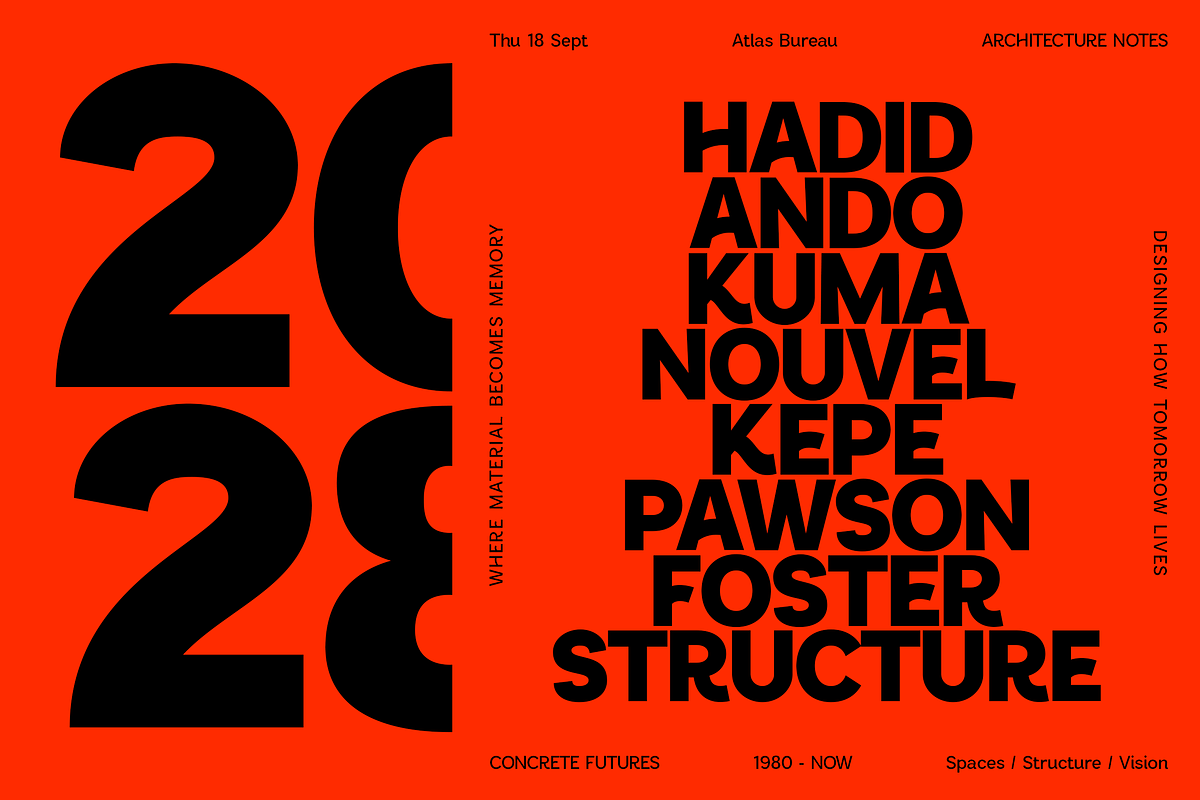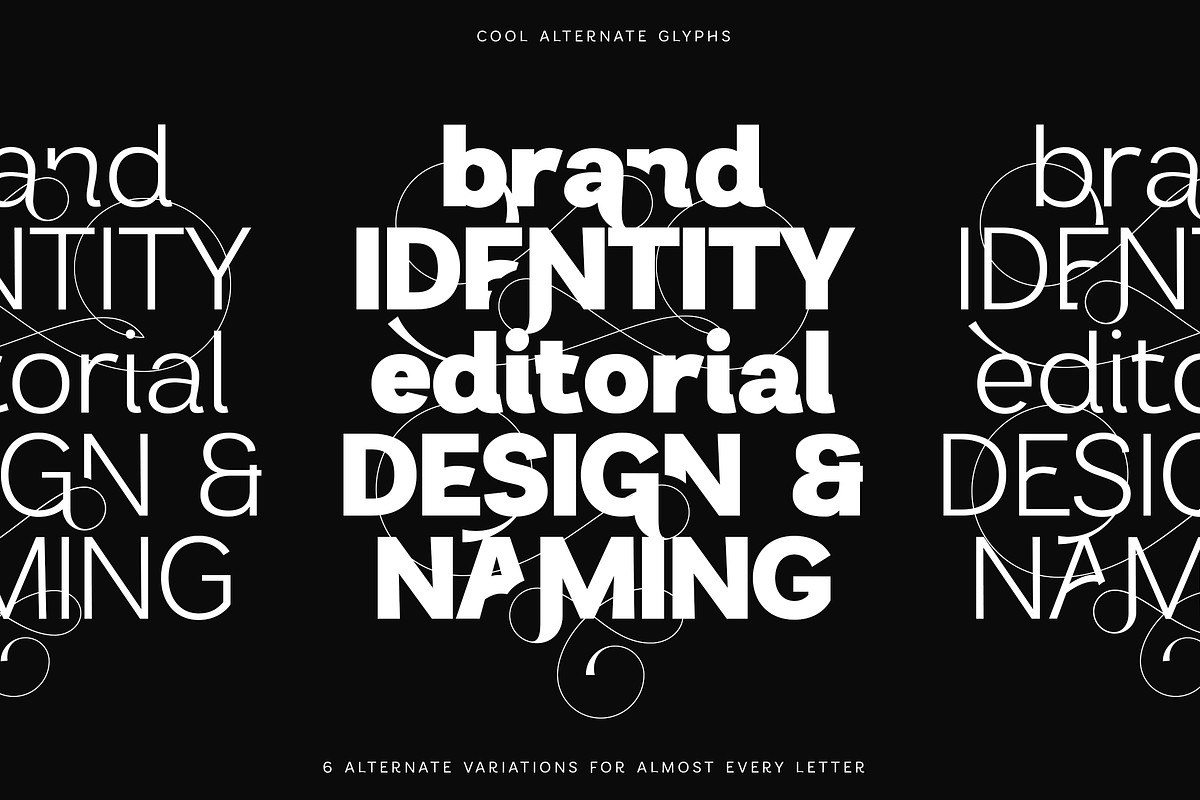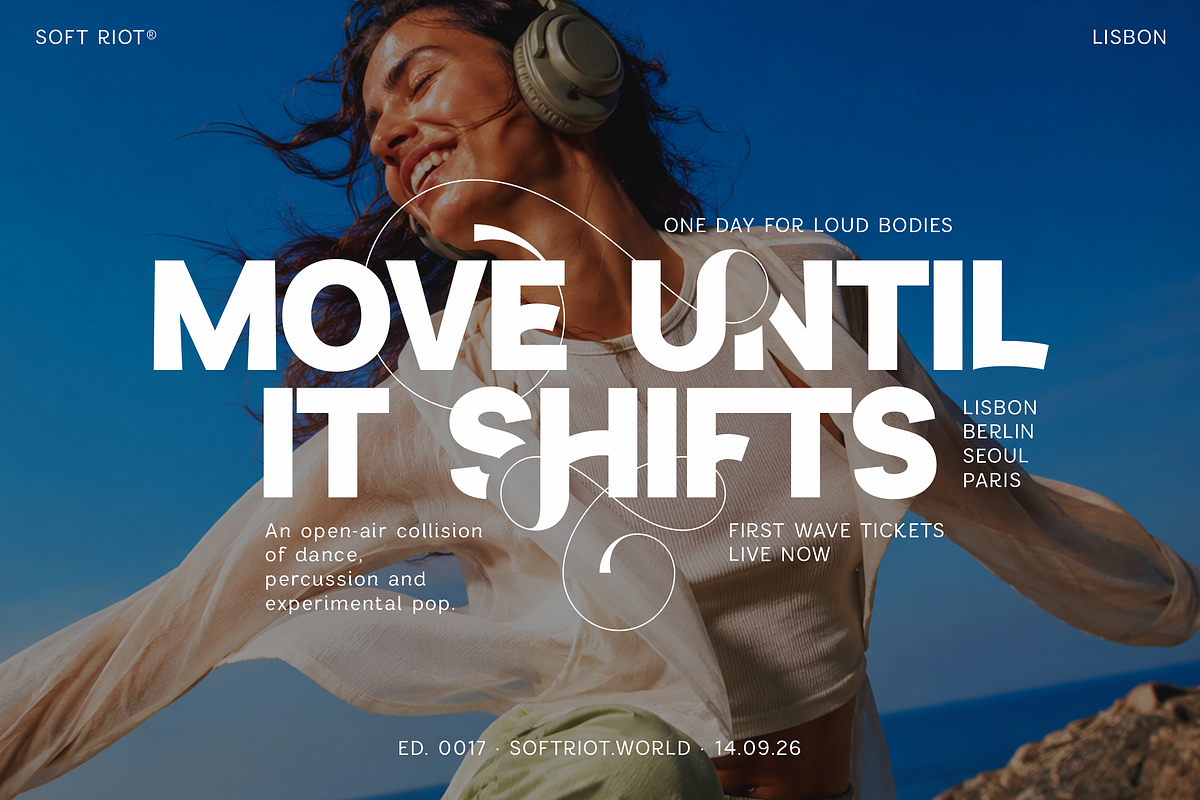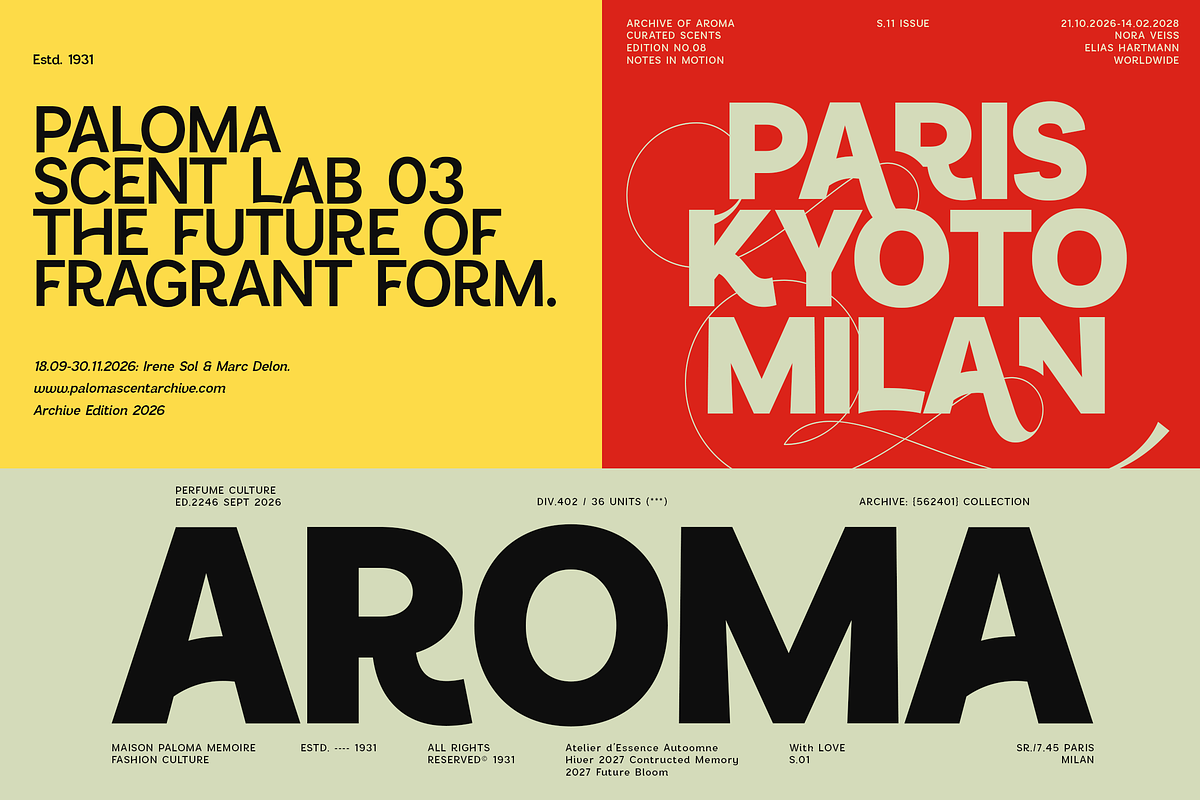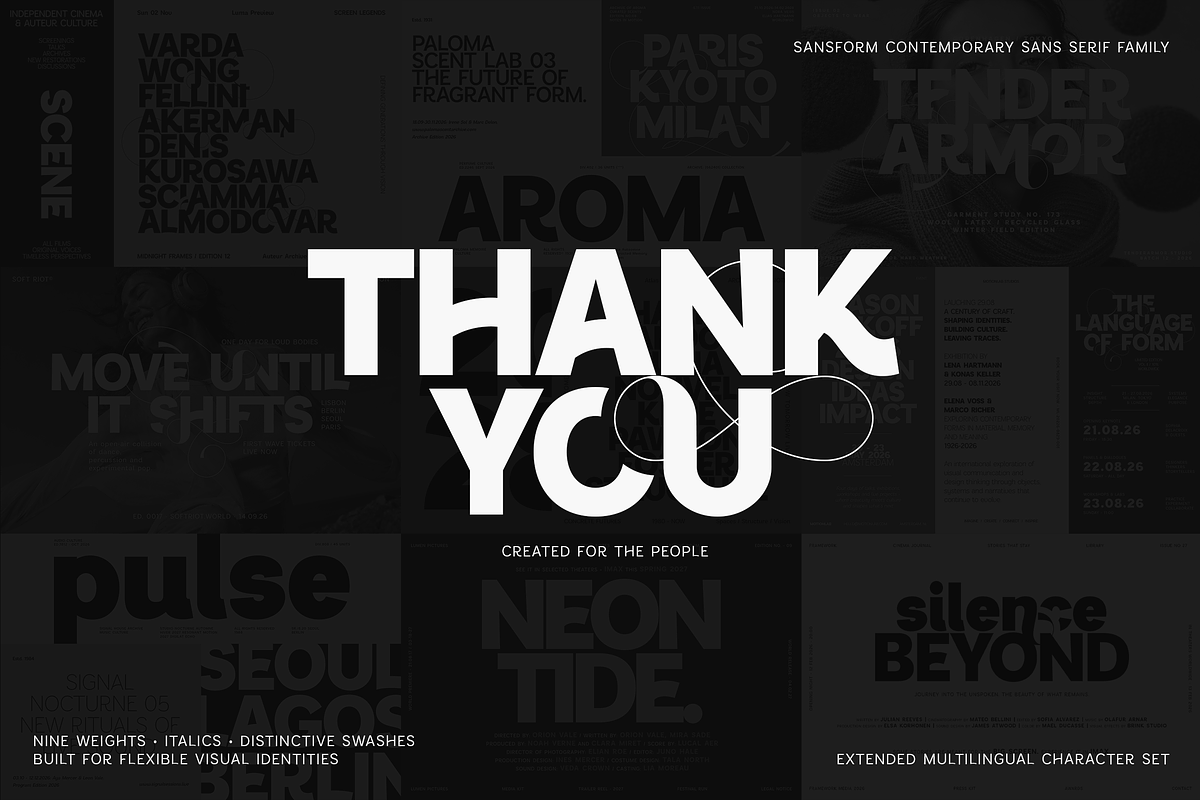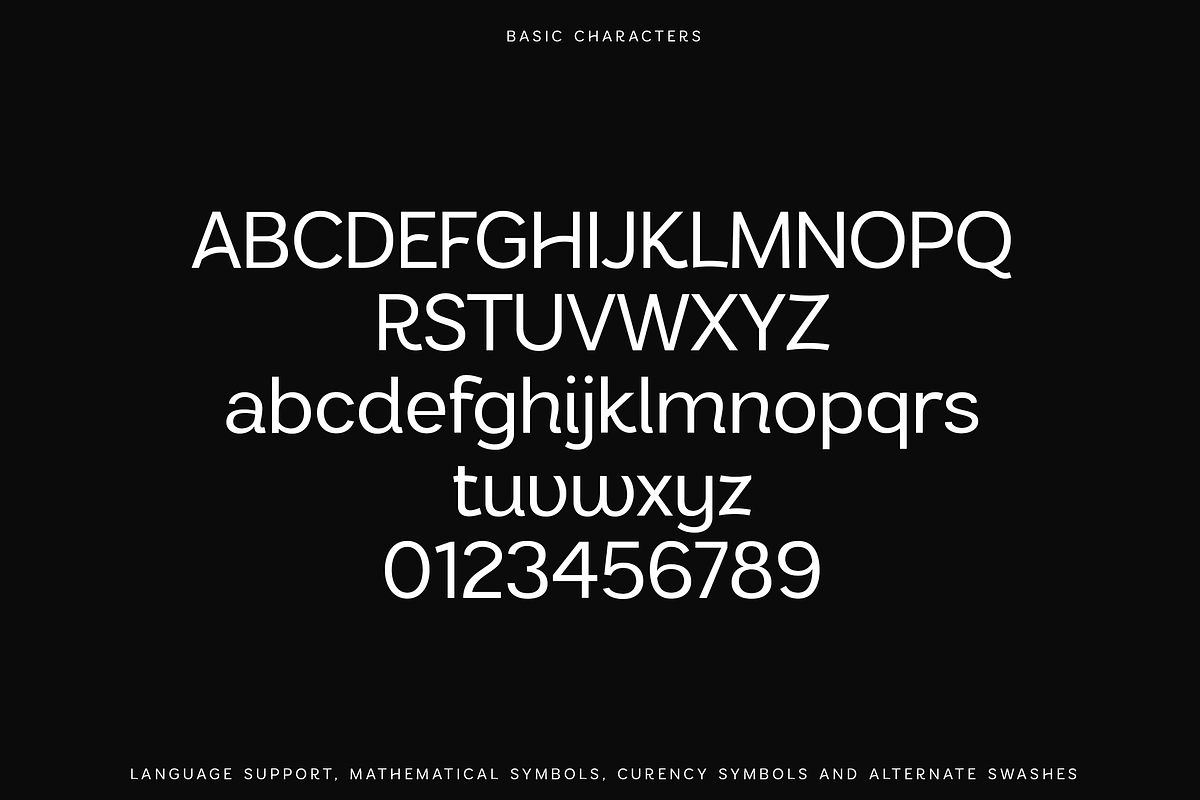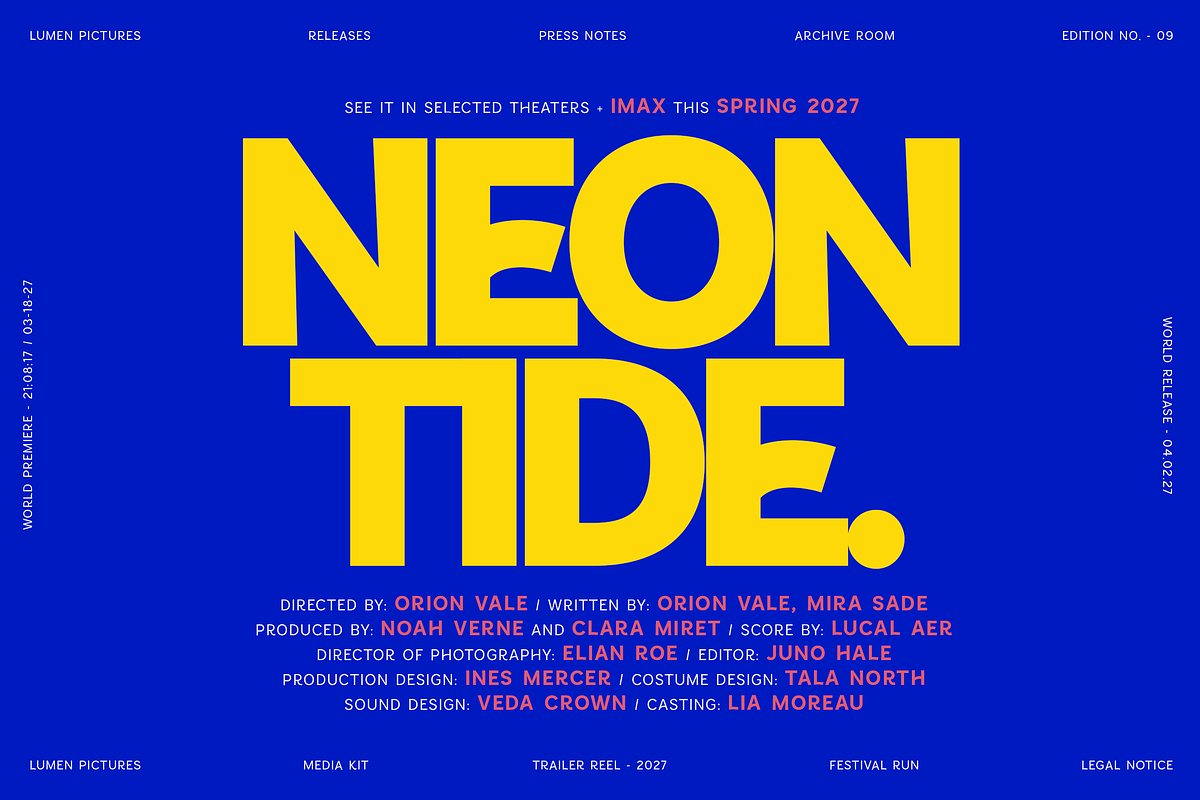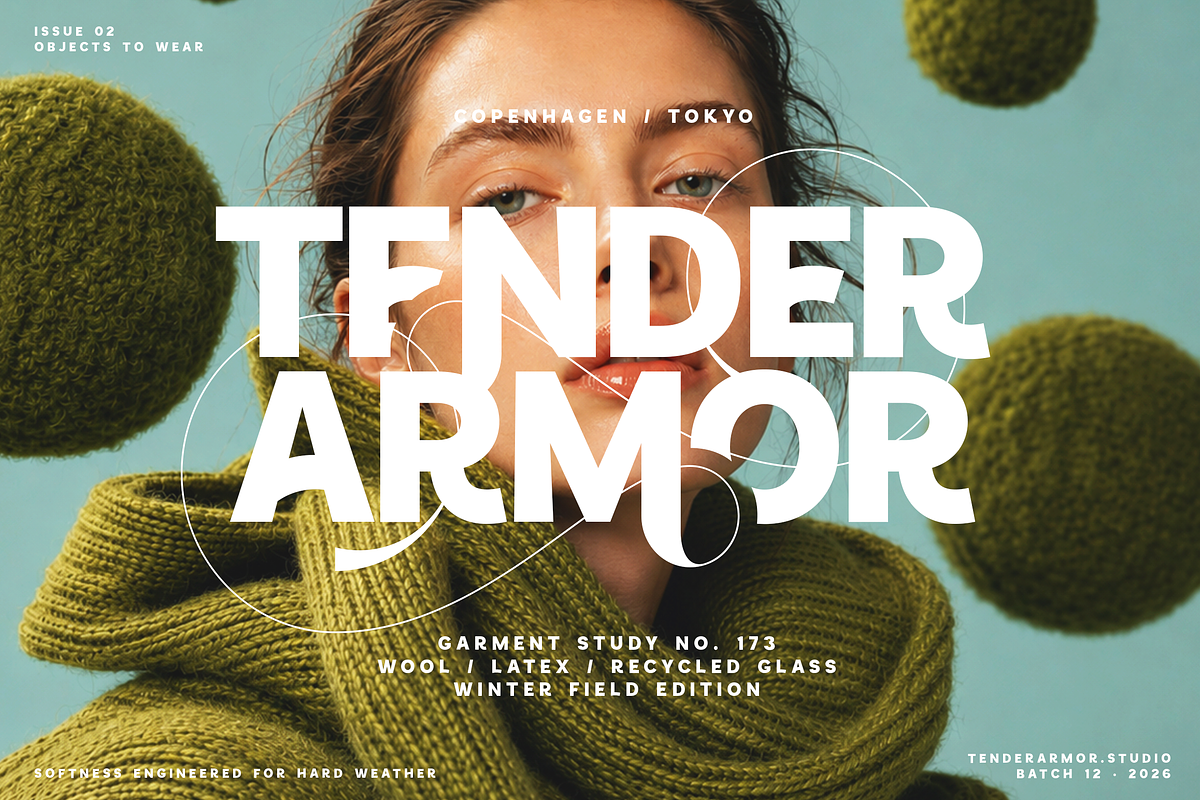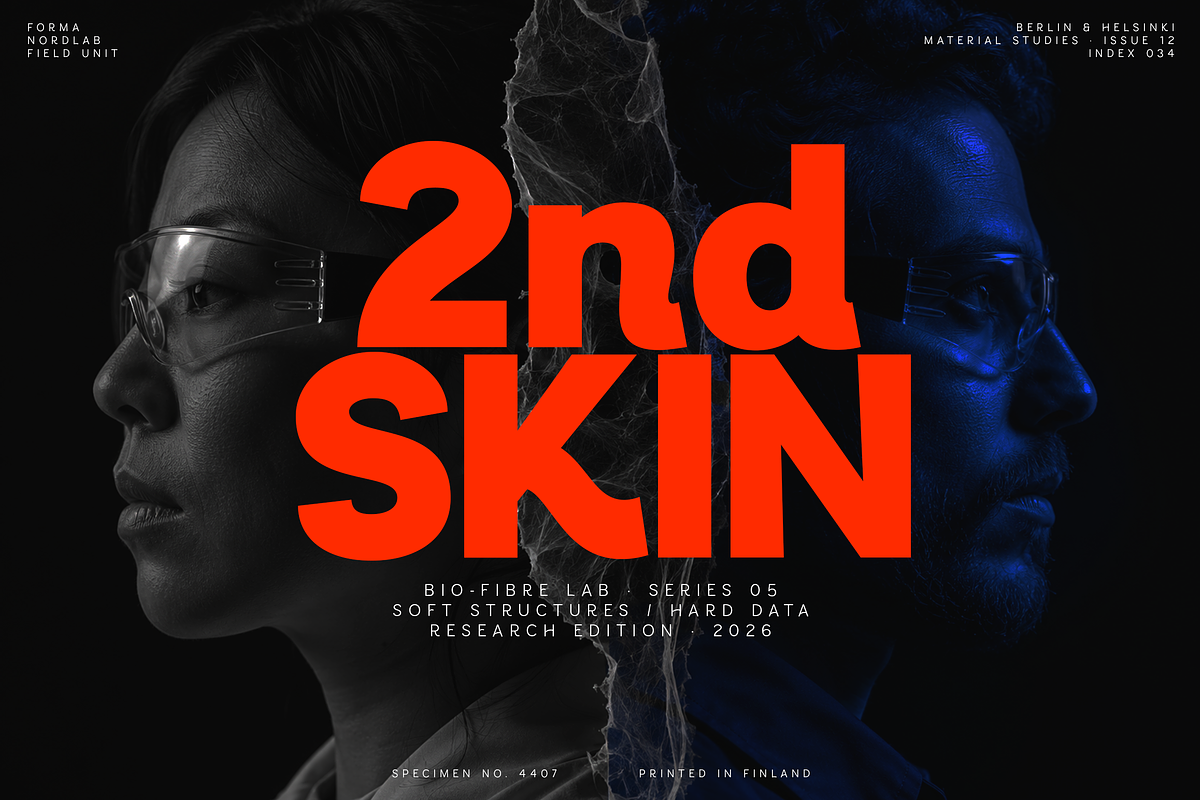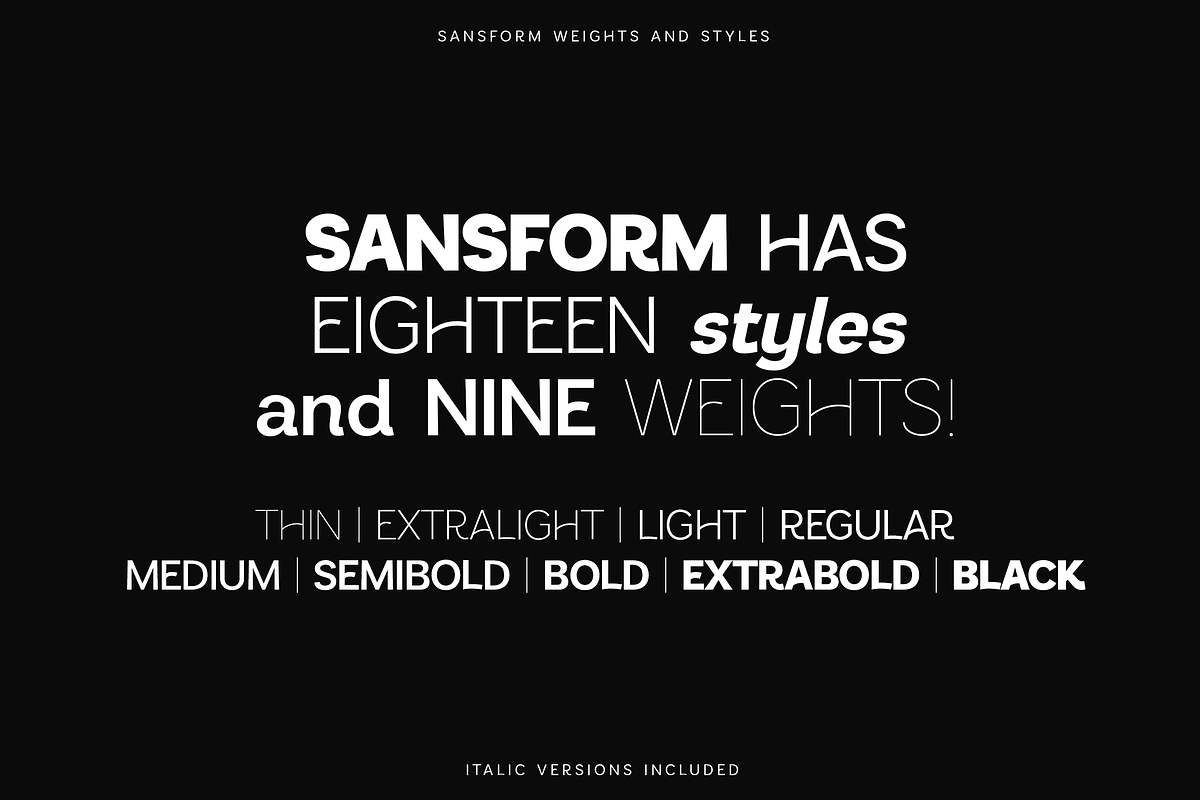
Sansform - Sans Serif Font Family
Sansform is a contemporary sans serif family built for designers who want clarity without sacrificing personality. Its clean geometric structure is enriched with expressive letterforms, elegant swashes and an extensive collection of alternate glyphs - making it equally powerful for minimal branding and bold editorial typography.
The family includes nine carefully balanced weights, from delicate Thin to commanding Black, each paired with a matching italic. This gives you 18 versatile styles that work seamlessly across headlines, body copy, logos and complete visual identity systems.
What truly sets Sansform apart is its flexibility. With six alternate variations for almost every letter, you can reshape words, create distinctive compositions and give each project a more custom, art-directed appearance. Use the clean standard characters for refined layouts, or introduce the expressive alternates and sweeping swashes when your design needs more movement and character.
Sansform is an excellent choice for:
Brand identities, logos, editorial layouts, magazines, fashion campaigns, packaging, posters, websites, social media graphics, advertising, presentations and contemporary cultural projects.
Included Features
9 weights from Thin to Black
Extensive alternate character collection
Distinctive decorative swashes
Numerals, punctuation and currency symbols
Extended multilingual language support
Designed for both display typography and supporting text
From understated luxury branding to energetic oversized headlines, Sansform gives you the tools to create typography that feels structured, memorable and unmistakably your own.
Clean in its foundation. Expressive in every detail.